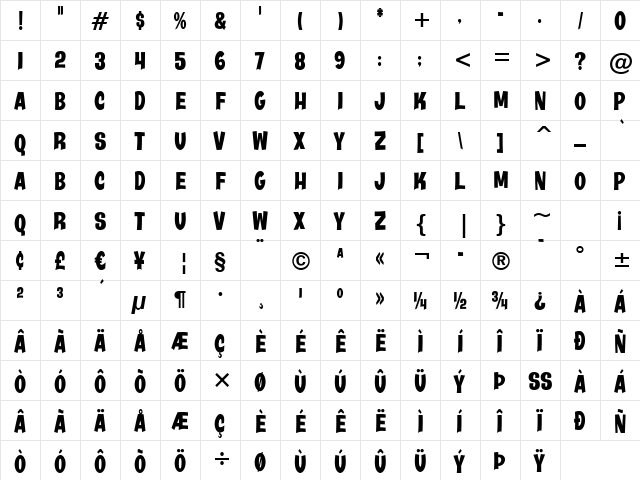
Java Kick BTN Cond Bold
Design Context for Java Kick BTN Cond Typeface
Java Kick BTN Cond is a composed and adaptable typeface that performs quietly and consistently across a wide range of design contexts. Its bold stroke weight gives it real presence on the page. The condensed width makes it efficient for tight spaces without sacrificing legibility.